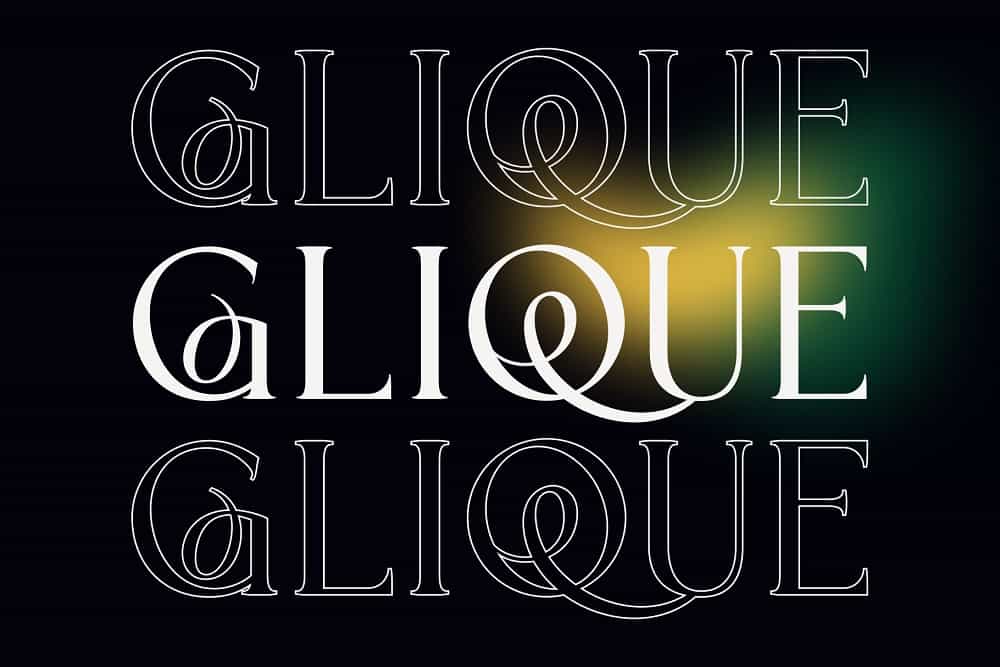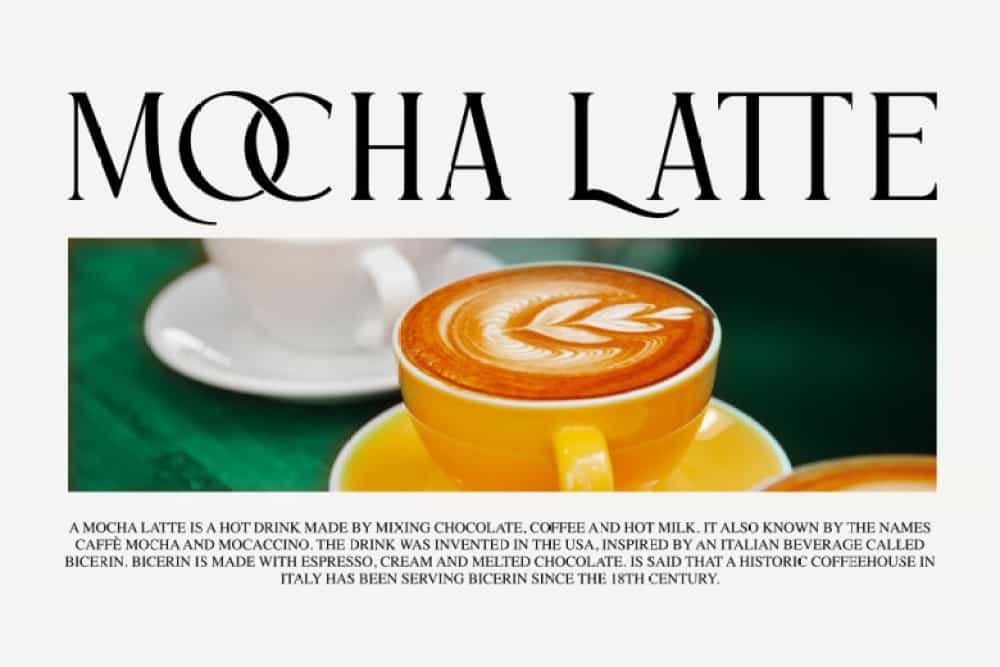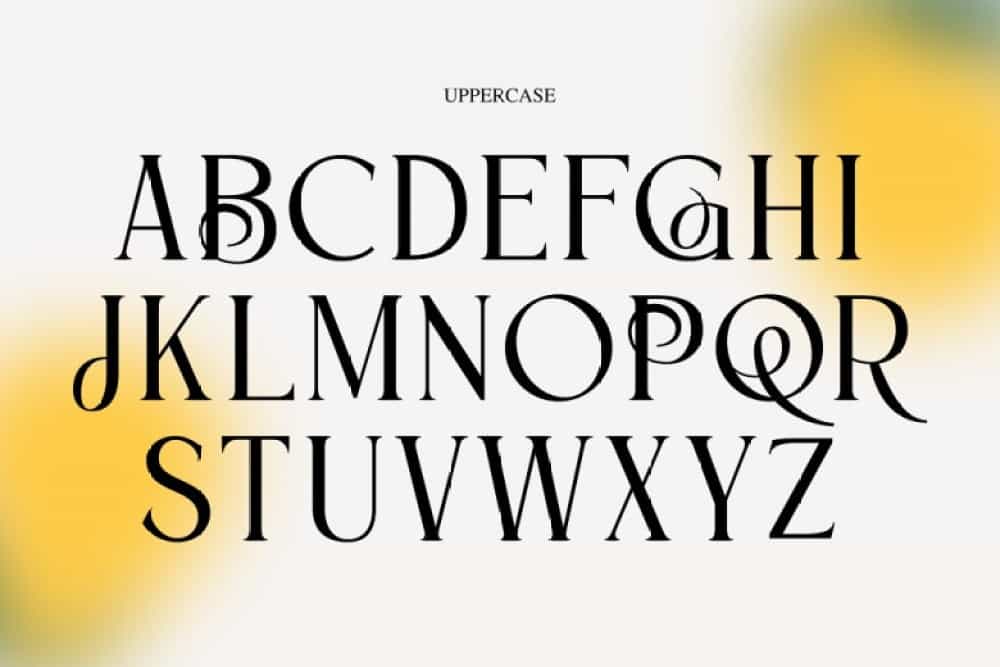
The design of Glique is a perfect example of a modernistic typography that has incorporated in it the timeless beauty with the innovation. Glique is born from the font giants who have been refined to be perfect for big sizes. From poster designing, zine formatting to sticker making,